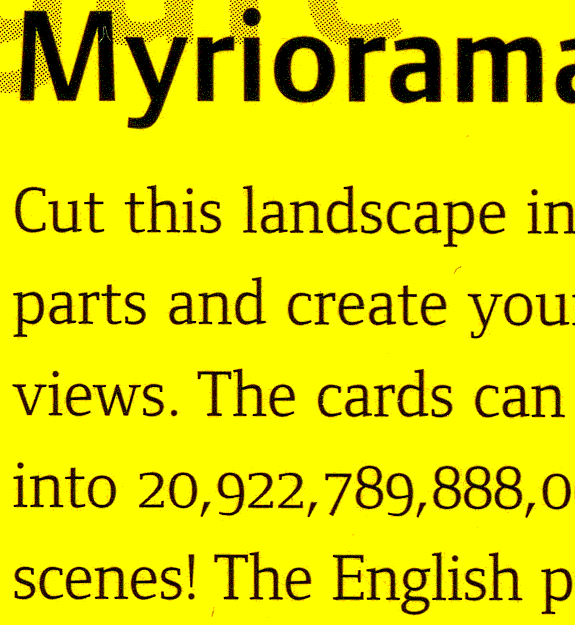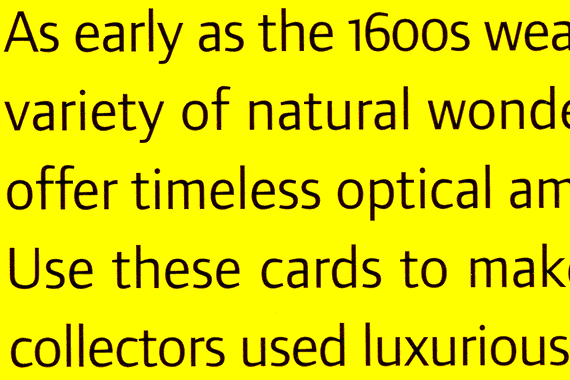
Today I was at the Getty Museum, and they had an exhibit
called "Devices of Wonder". Anyway, throughout the exhibit
as well as the support materials they're using a couple of
nice typefaces, a sans and a serif, which look related.
The sans especially looks very familiar, but I just can't
put my finger on it (all I know is, it looks very Unger).
As for the serif, it looks like a variant of a recently
released font, but there's some notable differences.
So here's a scan:
I'd really like to find out what these
two fonts are, and who designed them.
Here's a better view of the sans:
Argo was my first guess too, and it's certainly close... but it's not exactly the same. :-( The most obvious difference I saw is the UC "M".
OK, in case anybody's interested, I found 'em:
I believe the sans is Argo, from the Dutch Type Library. Here's a link:
The serif looks awfully familiar, too, but I can't place it.
The serif font reminds me of (but clearly isn't) Martin Majoor
I am also interested in what you found - but unfortunately I could not get through to the links you provided; may you please let me know the name of the Sans font?